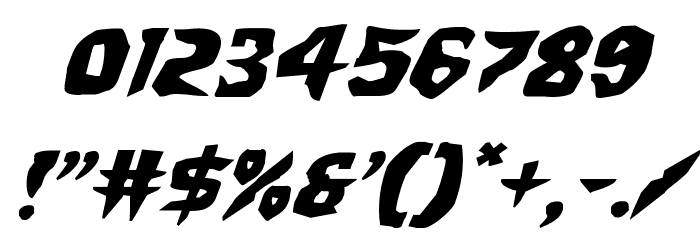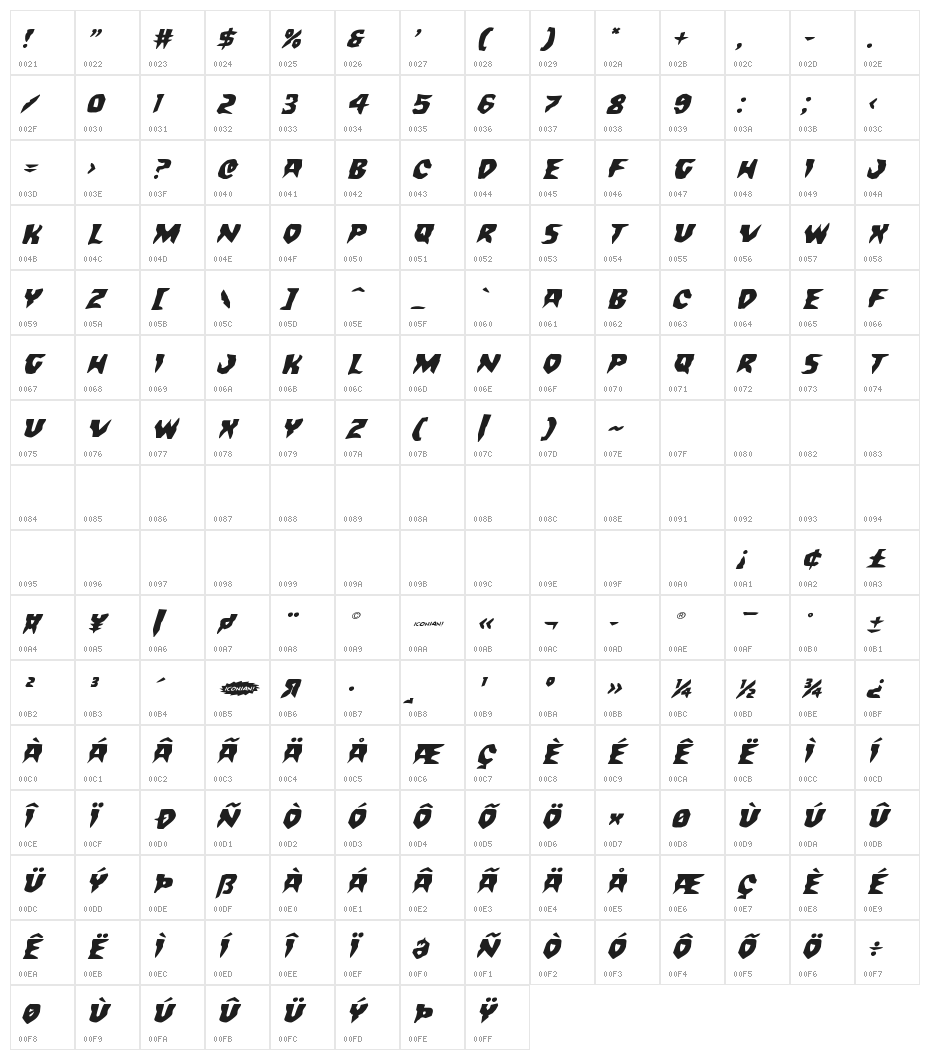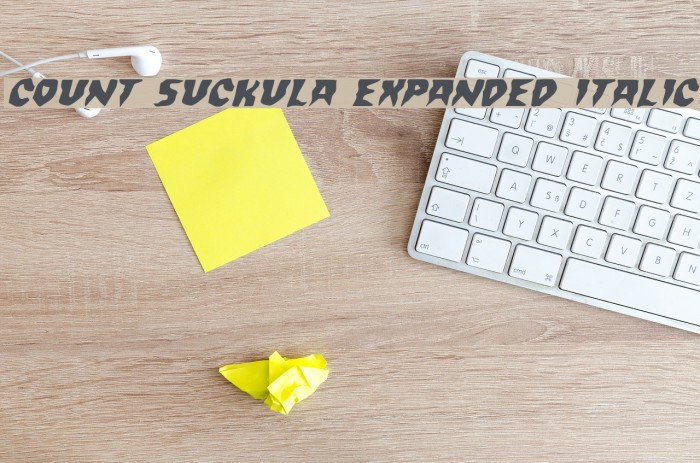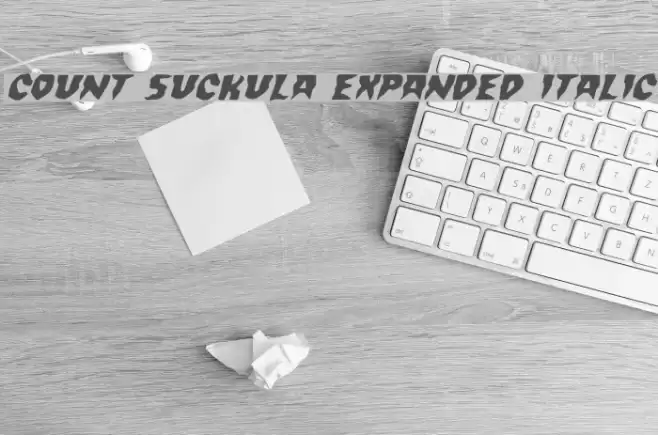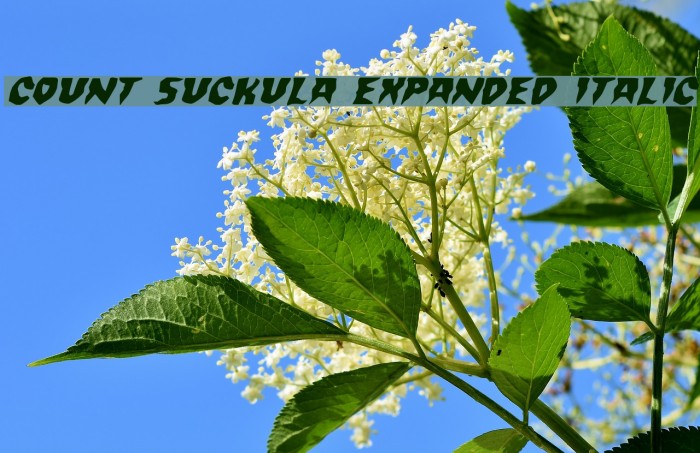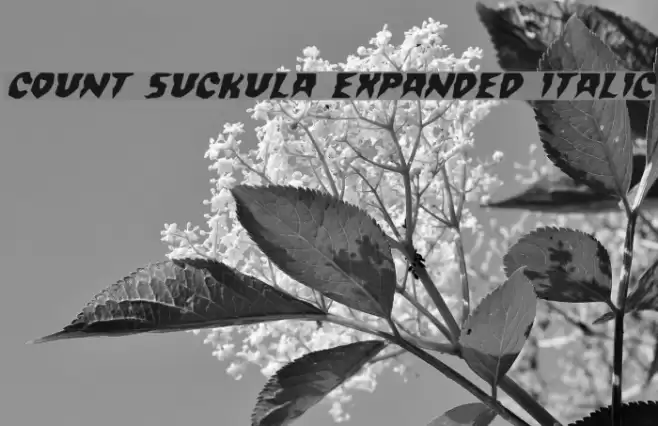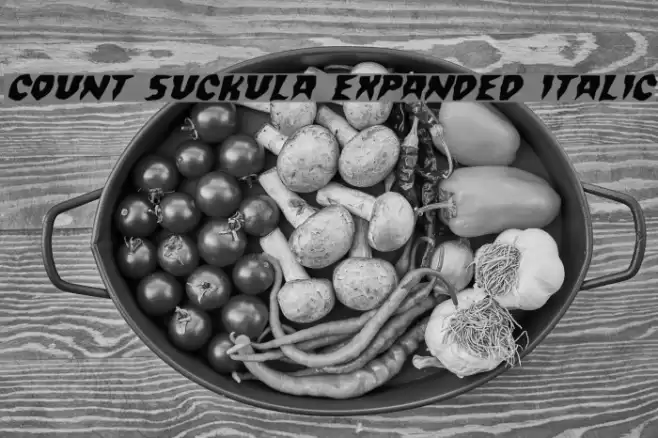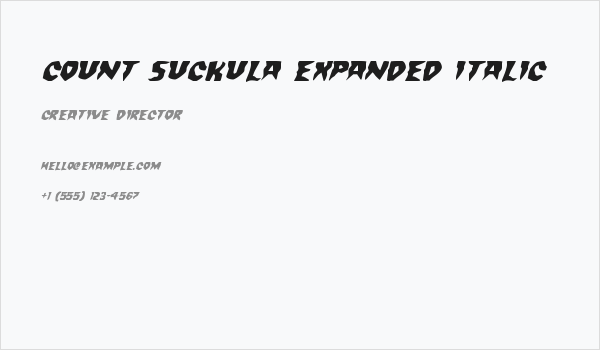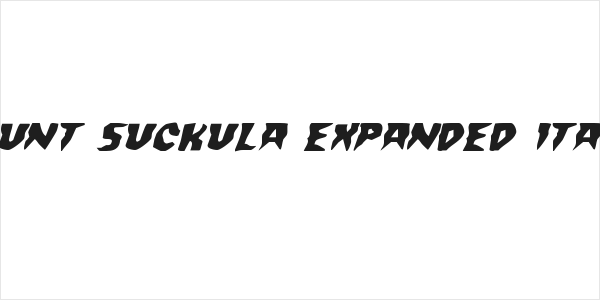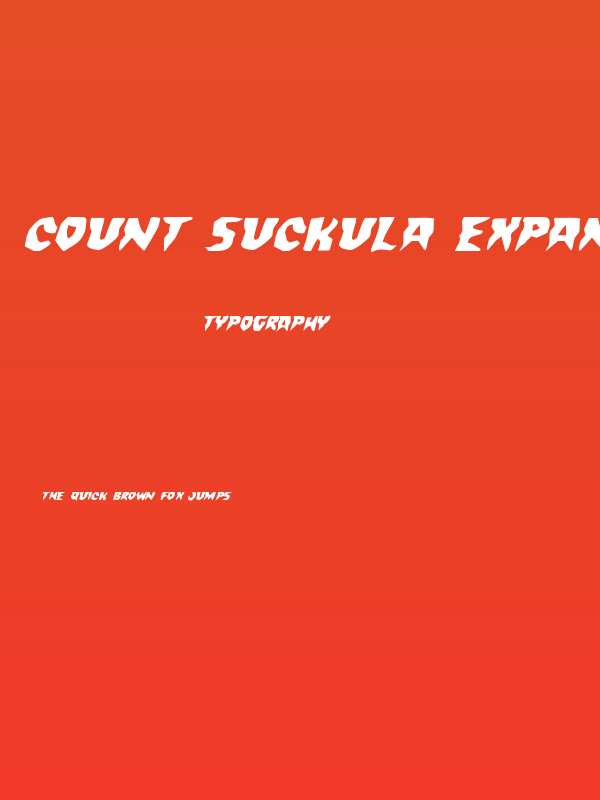
Count Suckula Expanded Italic Font
Count Suckula Expanded Italic Description
This font features a bold and dynamic style with sharp, angular edges and a distinct slant, giving it an italicized appearance. The characters are heavily stylized with a gothic influence, making them appear both aggressive and playful. The uppercase and lowercase letters maintain a consistent design, with exaggerated serifs and strokes that create a sense of movement and energy. The numbers and special characters follow the same bold and expressive style, ensuring uniformity across the typeface. This font is designed to capture attention and convey a sense of boldness and creativity.